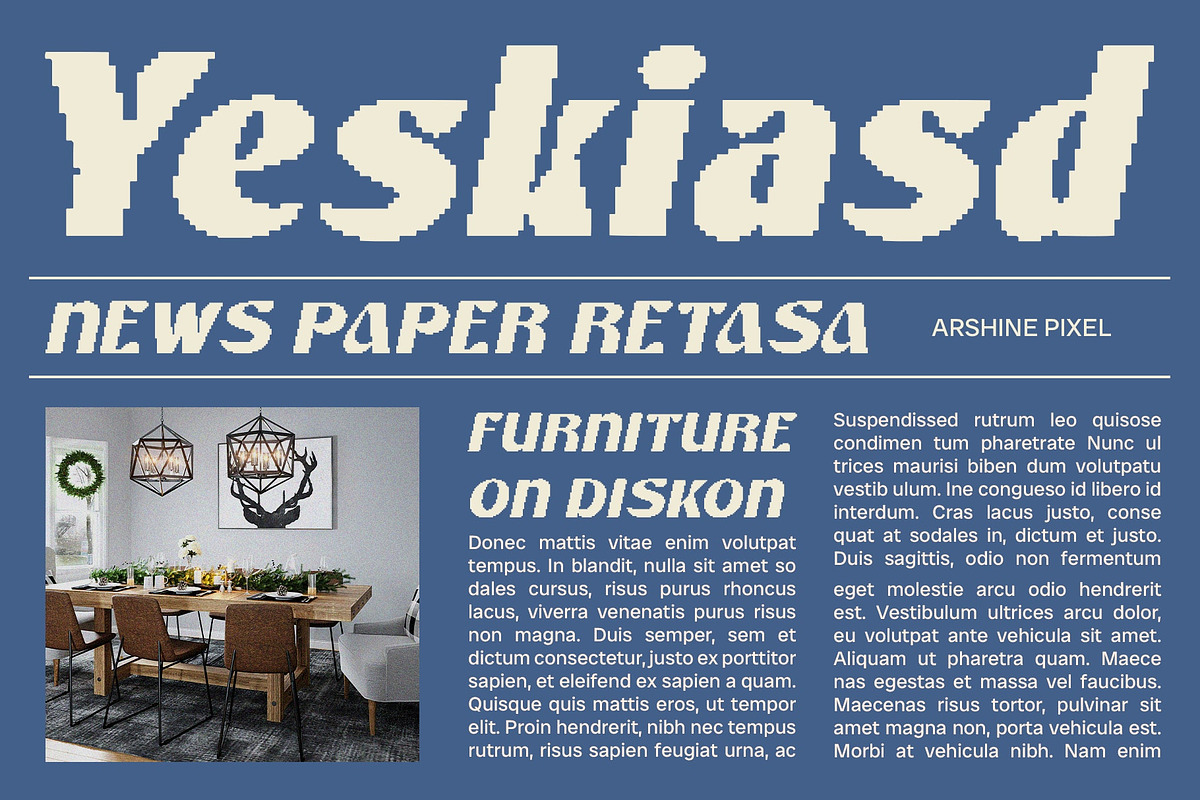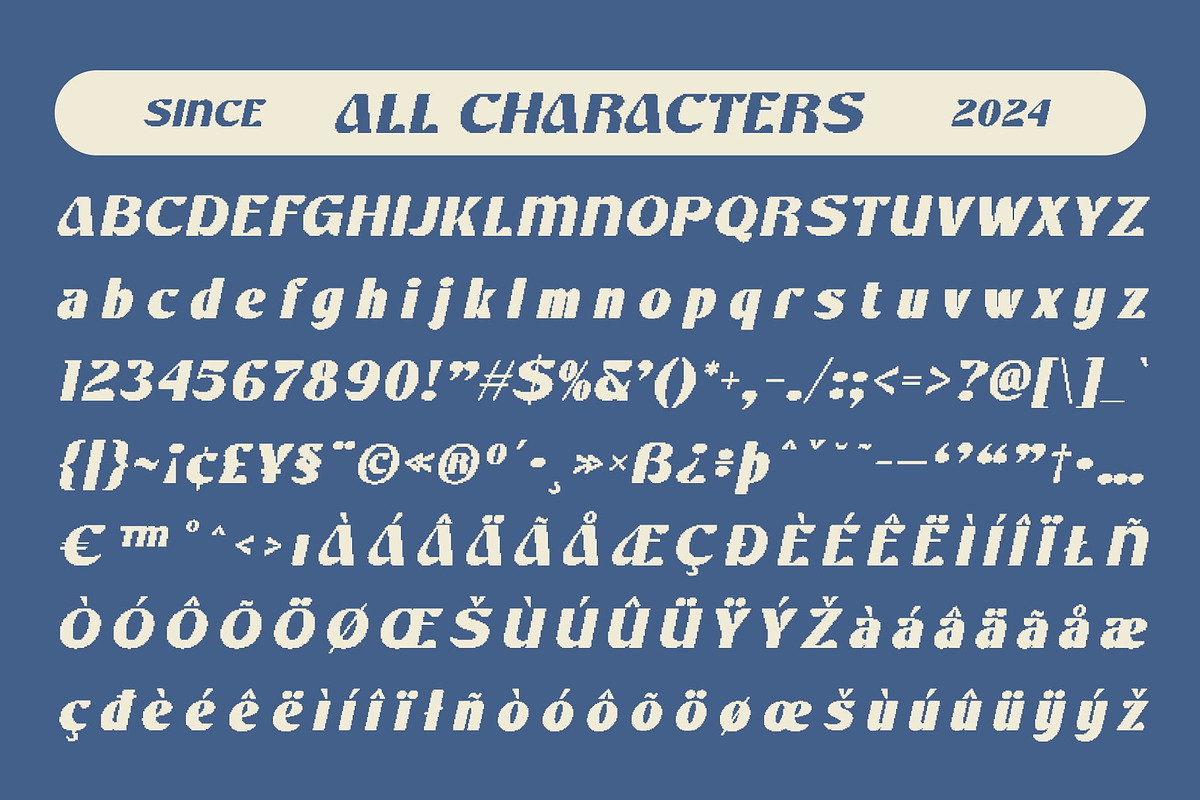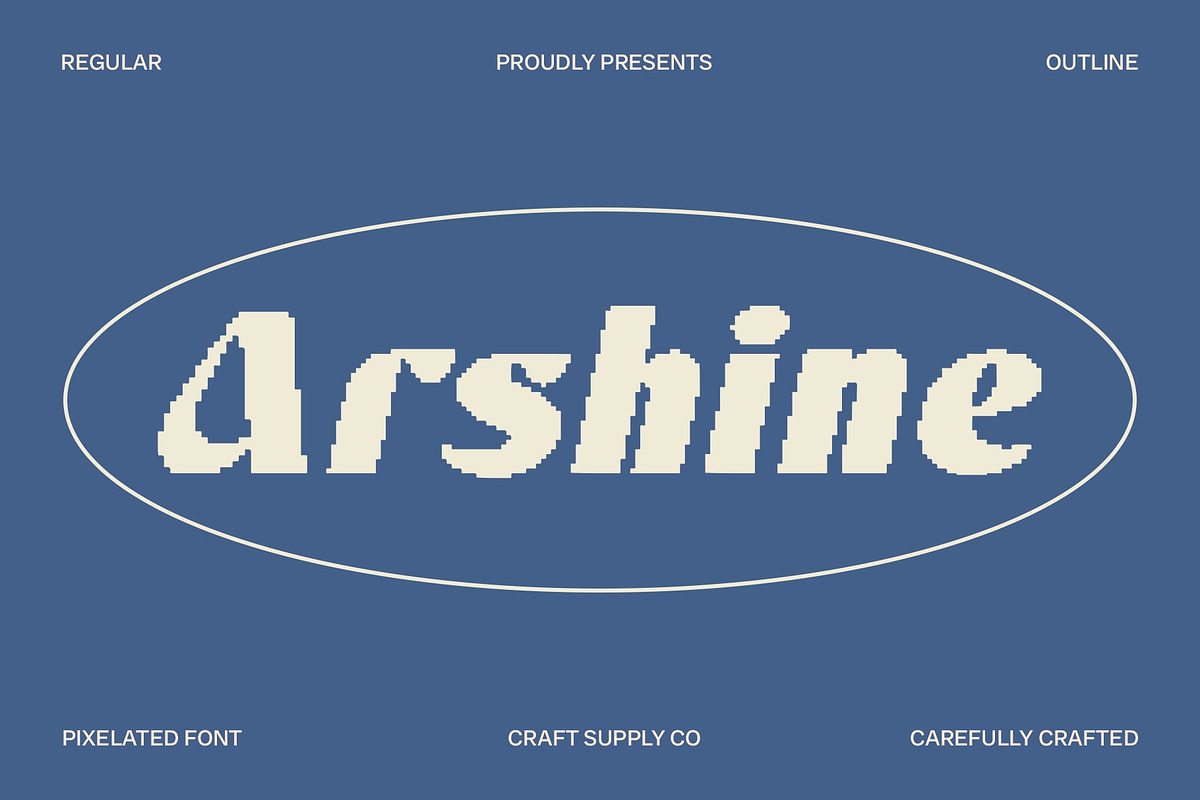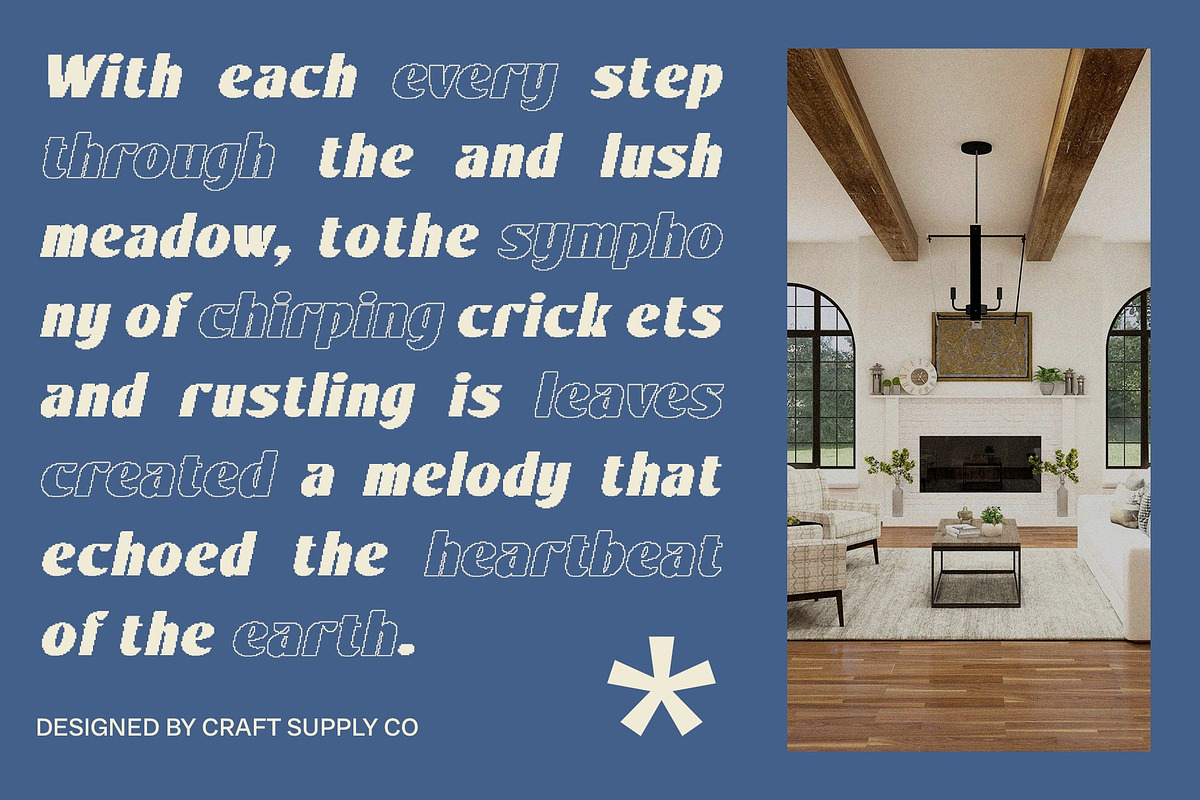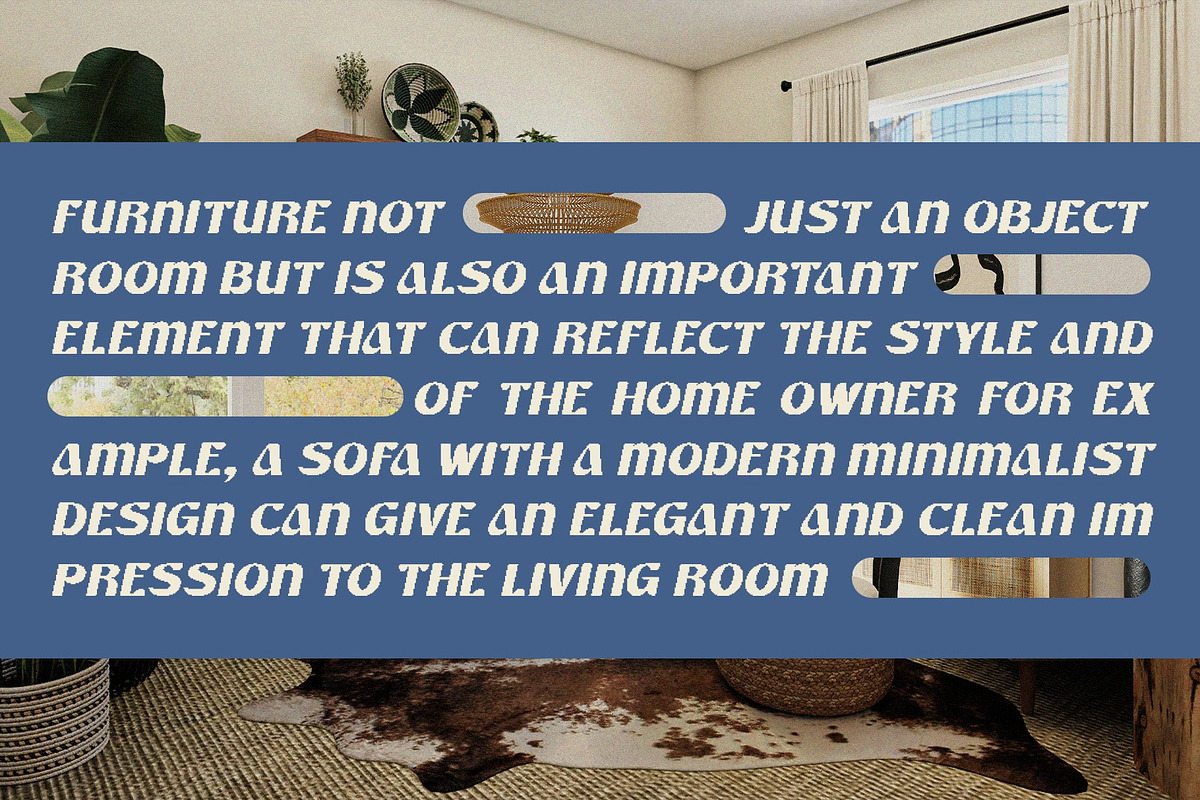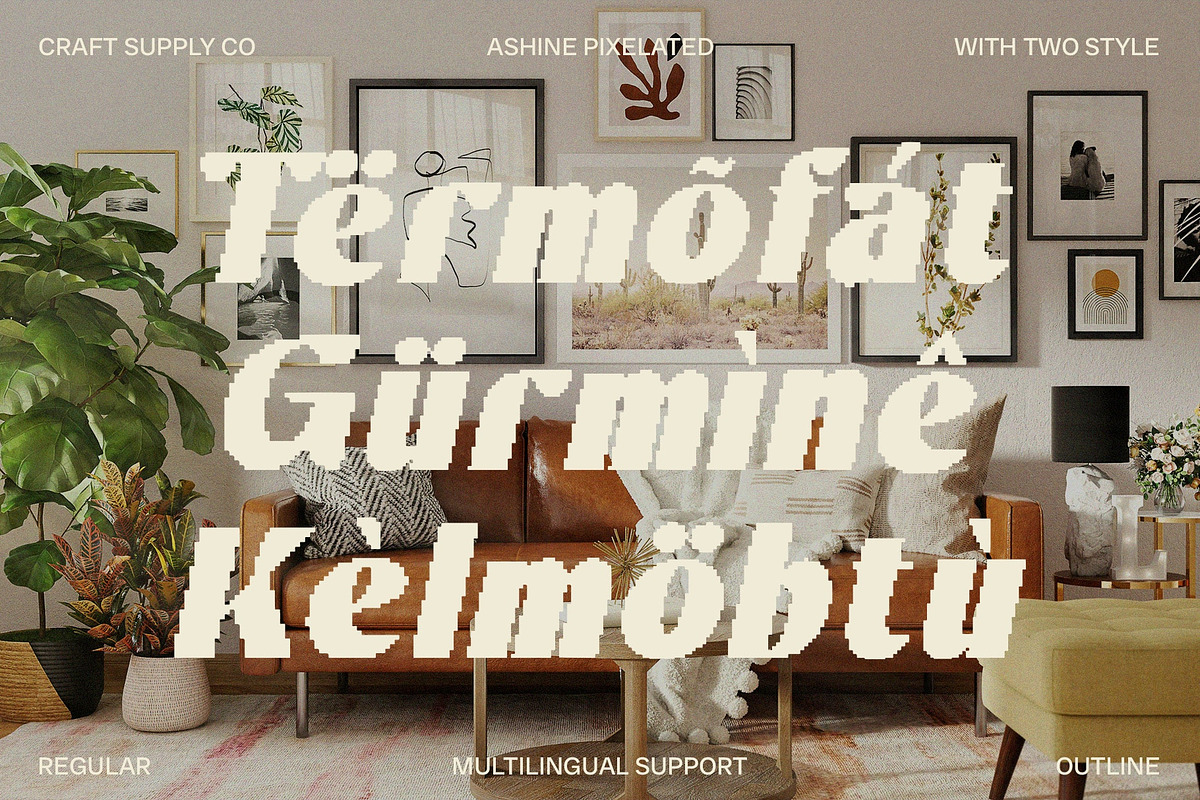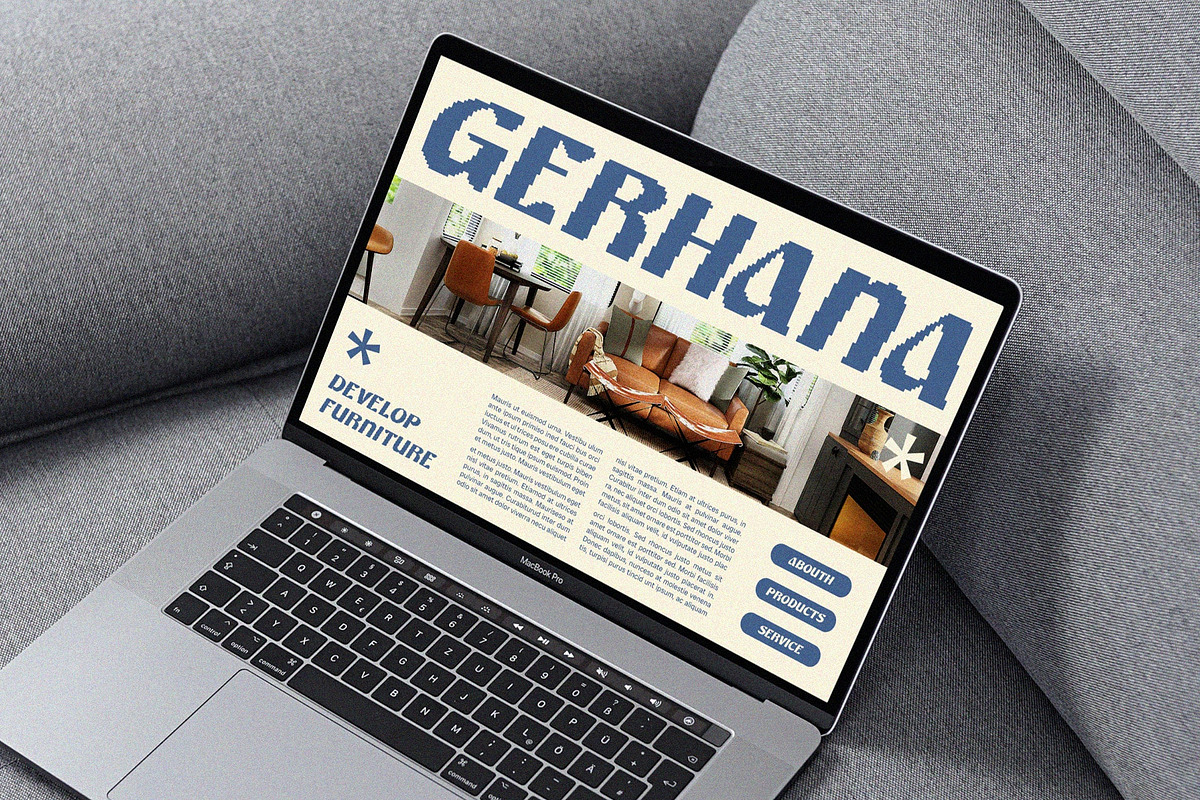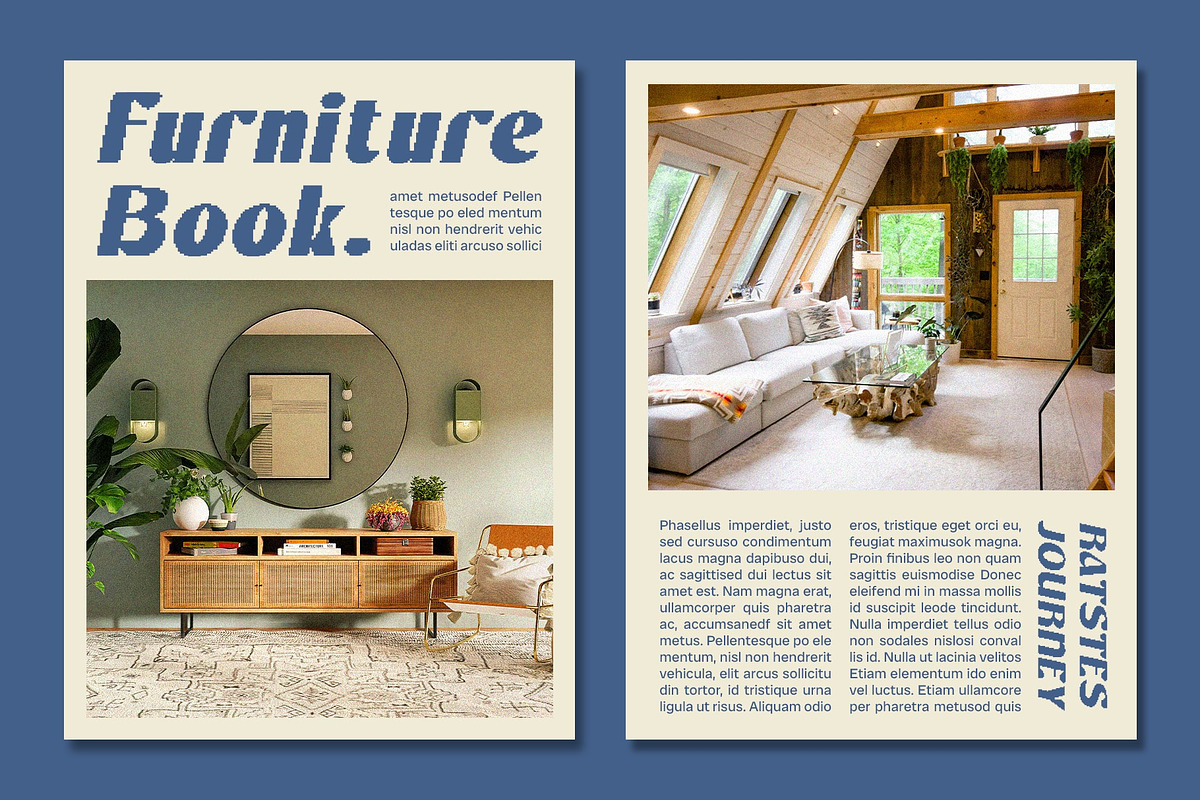
Arshine Pixel
Arshine Pixel: Bold and Funky with a Retro Digital Twist
Blend of Classic and Modern Aesthetics
Arshine Pixel is a bold, cute, and funky sans-serif font with a retro feel and pixel effect, offering an intriguing blend of classic and modern aesthetics. The bold shape provides strong emphasis, while the cute and funky elements add a cheerful and creative appeal.
Perfect for Creative and Unique Designs
With its bold design and playful elements, Arshine Pixel is perfect for designs aiming to highlight creativity, uniqueness, and retro spirit. This font ensures your projects stand out with a combination of strong emphasis and cheerful charm, making it suitable for various applications requiring a distinctive and engaging aesthetic.
Ideal for Poster Design and Branding
Arshine Pixel enhances designs such as posters and branding, providing a bold and artistic appeal. Its pixel effect adds a contemporary digital touch, ensuring your designs convey a creative and nostalgic vibe while maintaining a modern edge.
Versatile for Product Packaging and Promotional Materials
Versatile and visually striking, Arshine Pixel adapts seamlessly to various creative projects, including product packaging and promotional materials. Whether used in digital or print media, this font provides a captivating and retro-inspired appeal that enhances the overall impact of your designs.